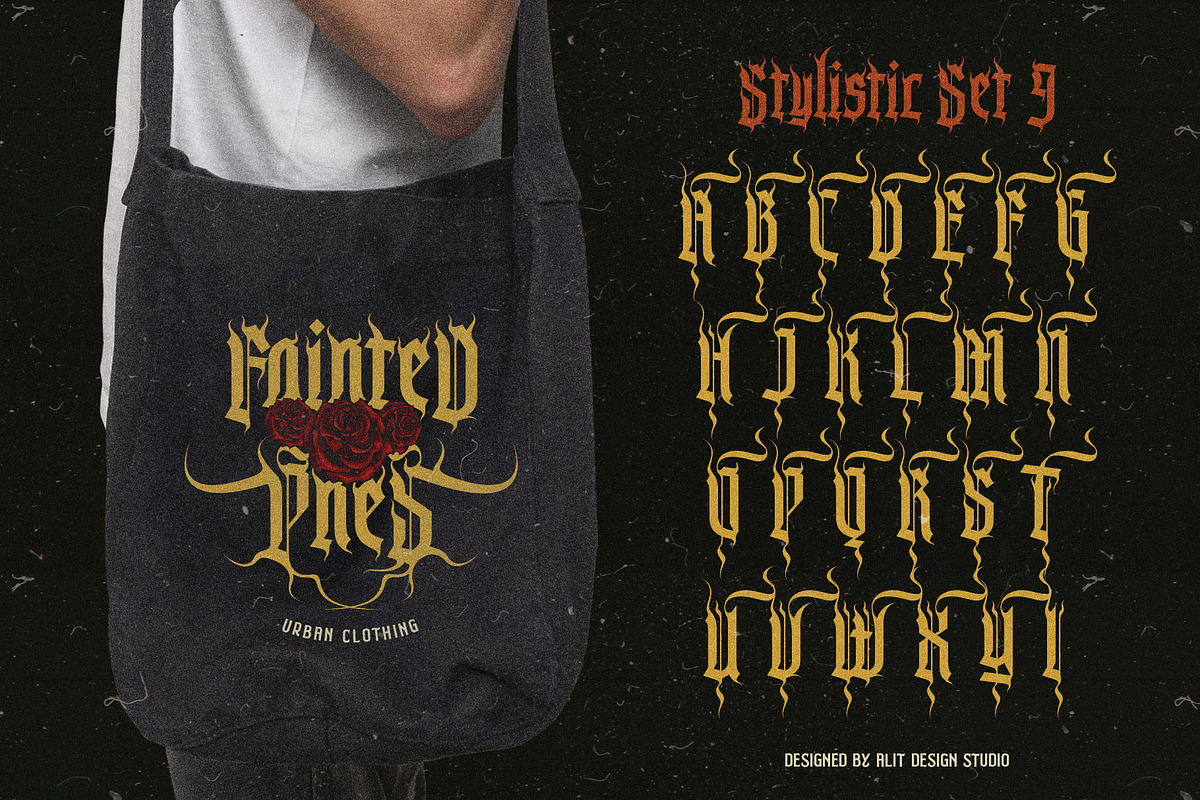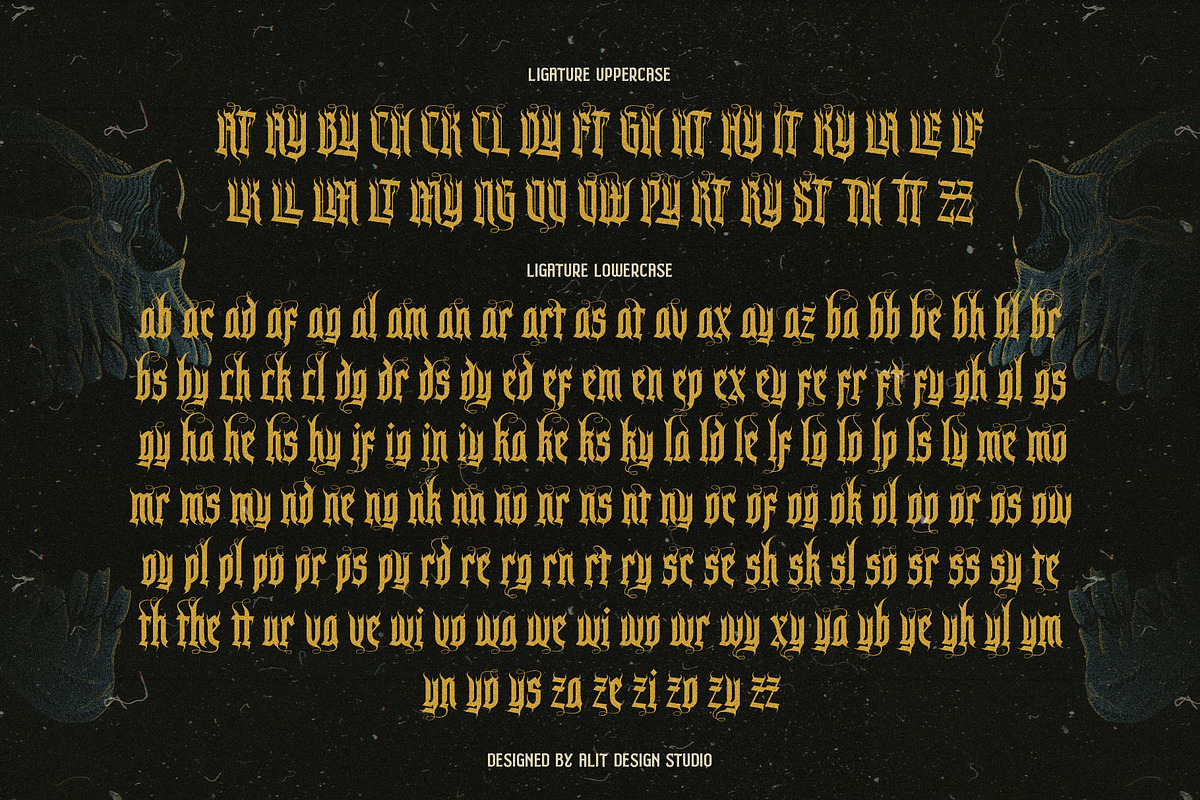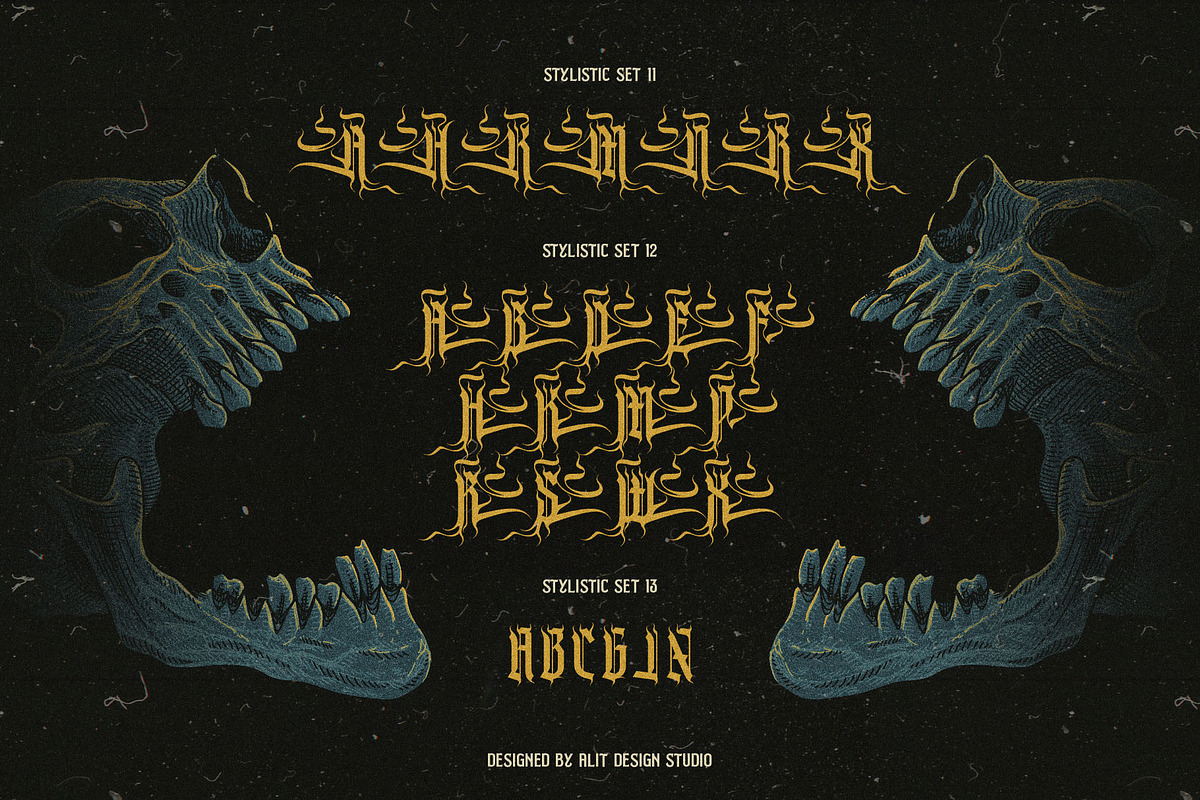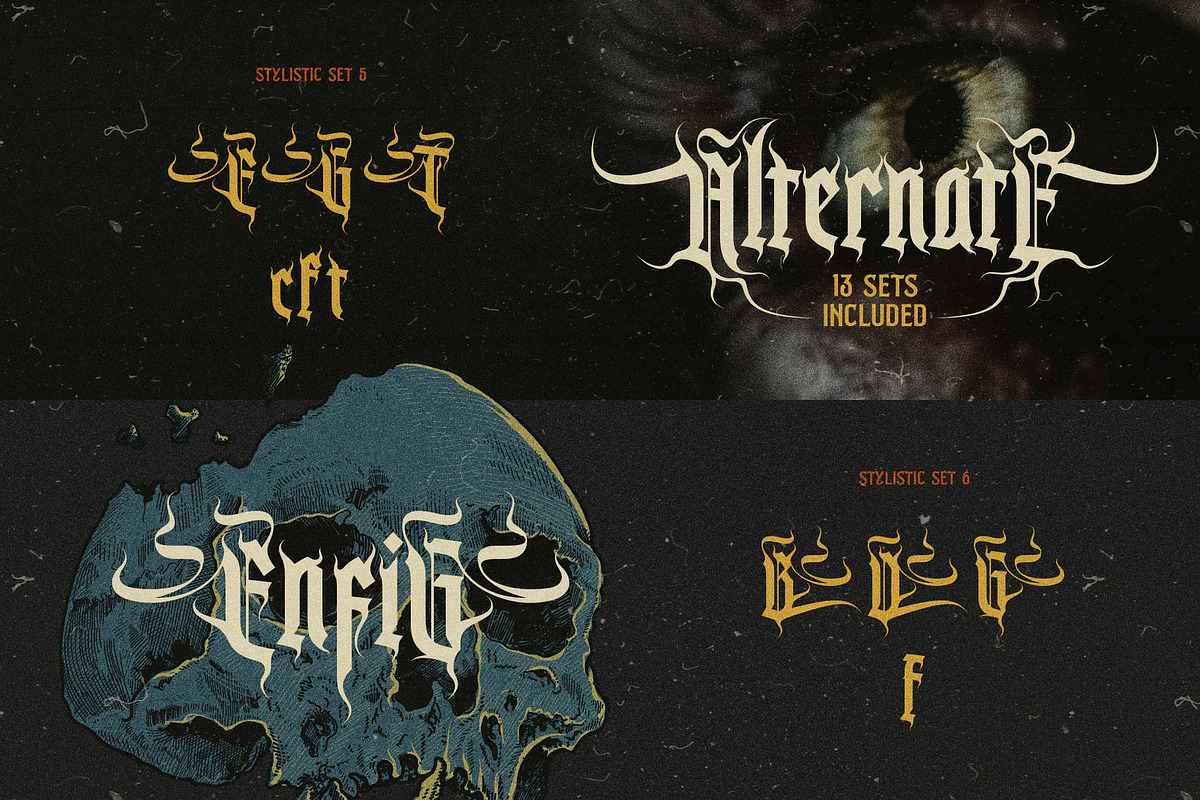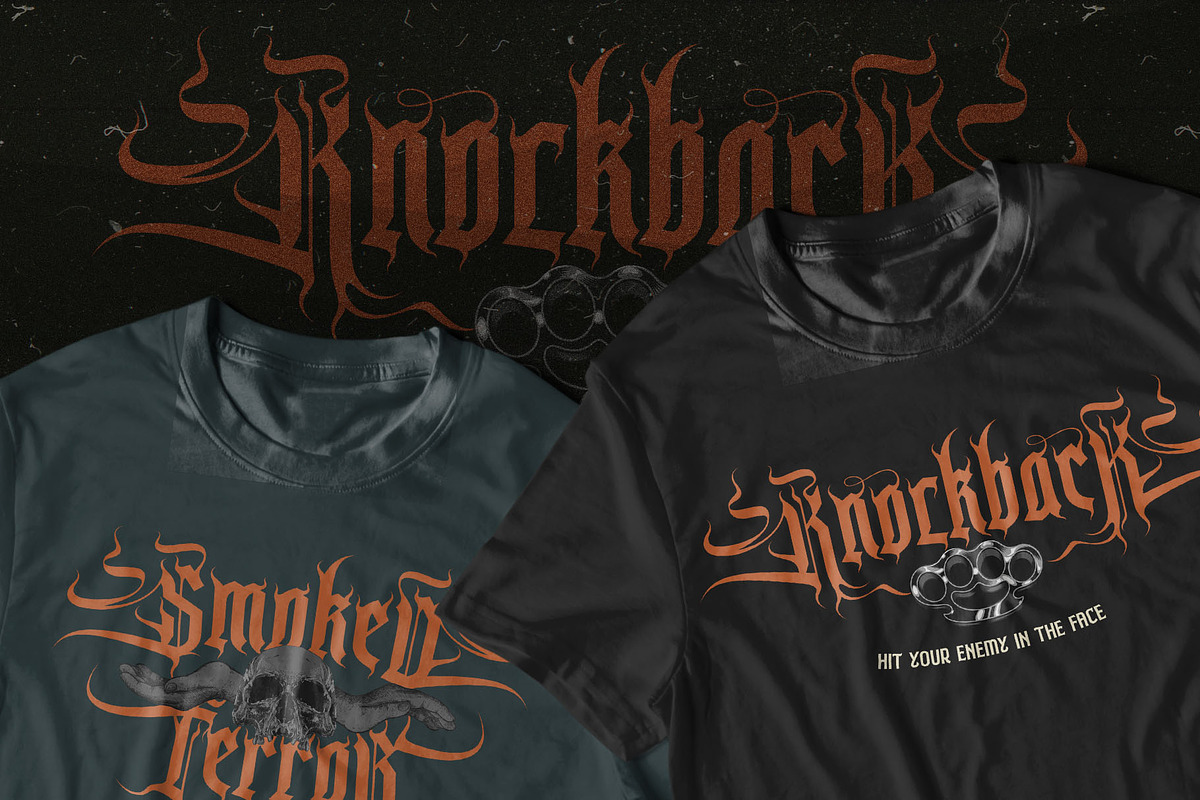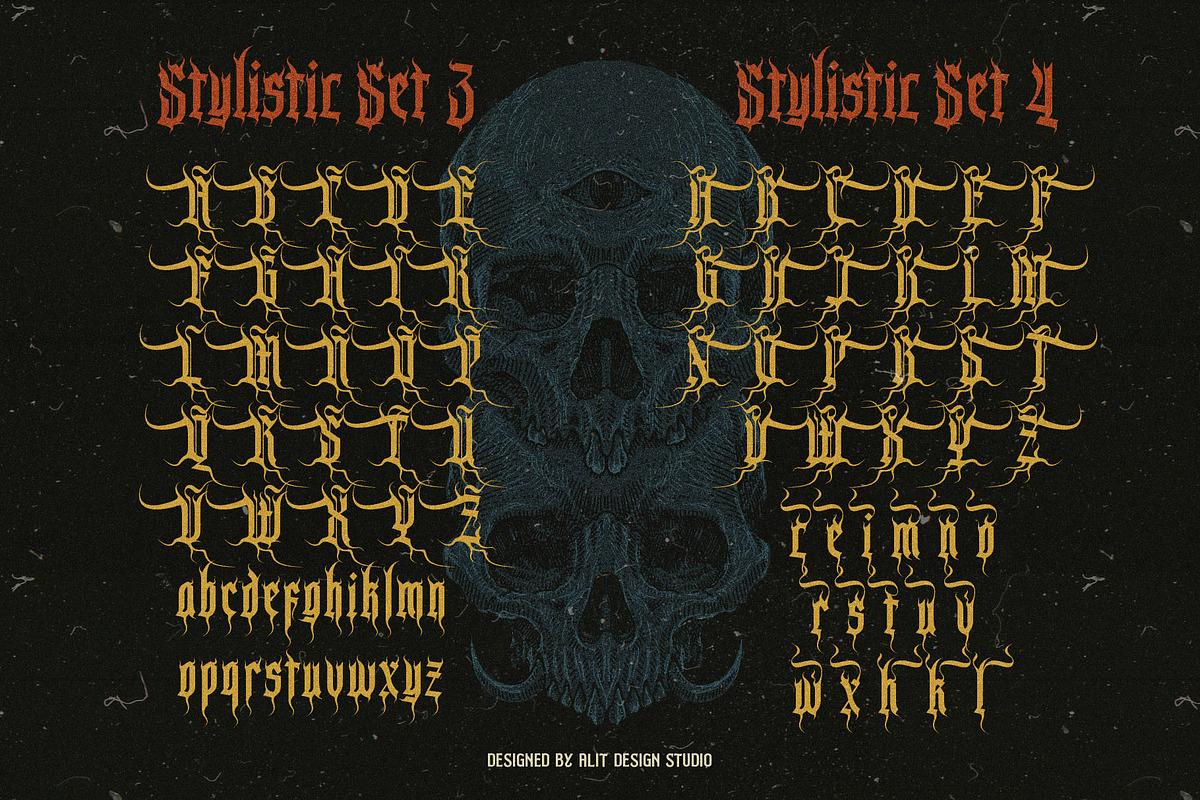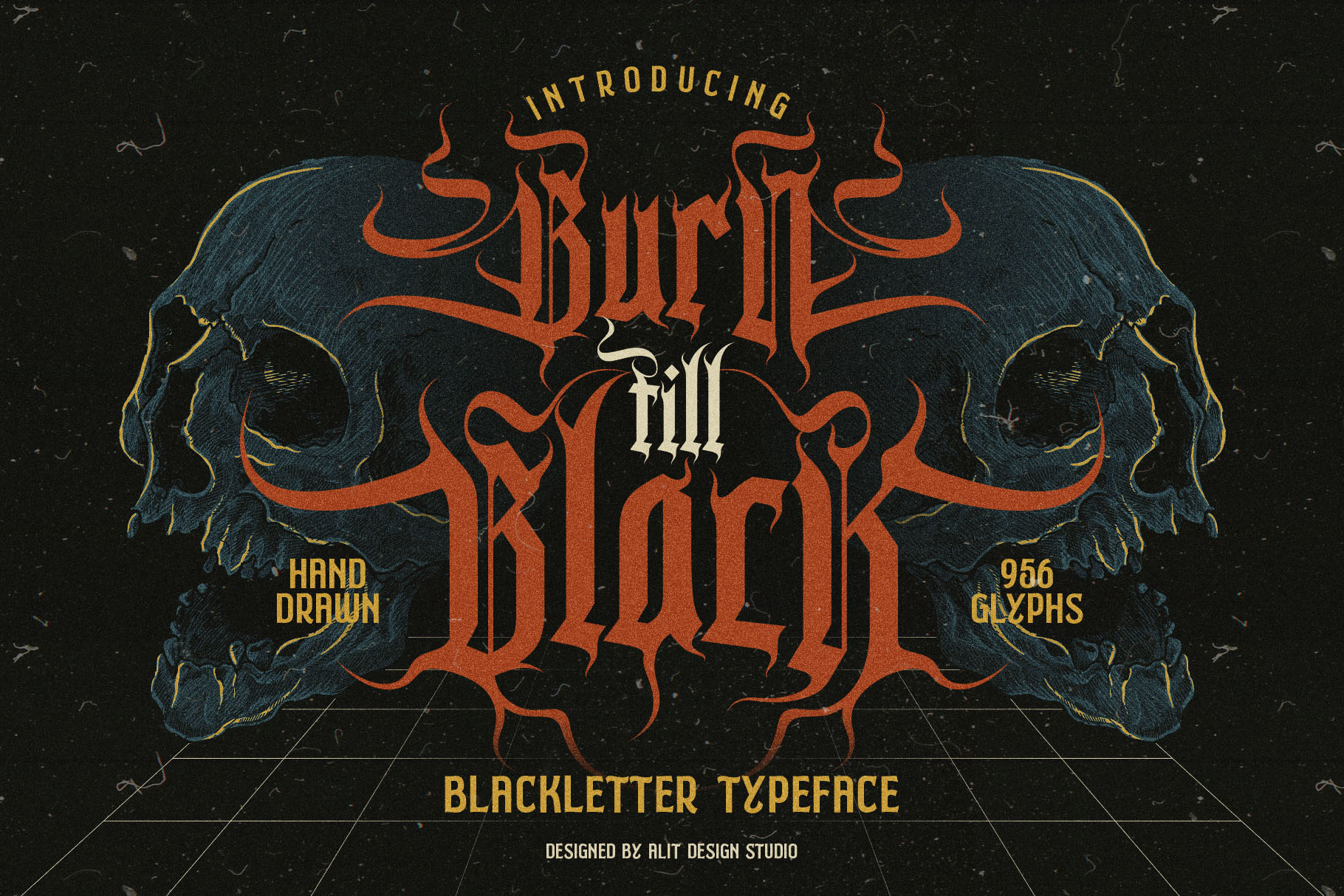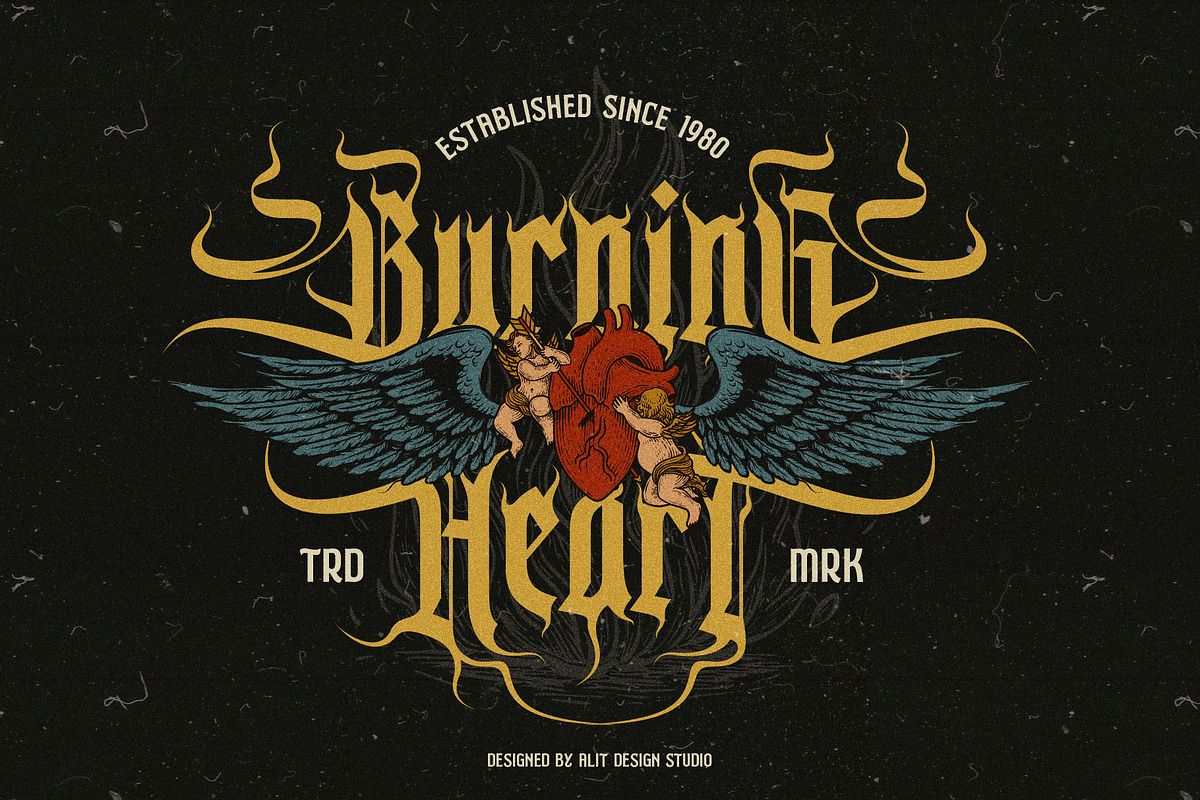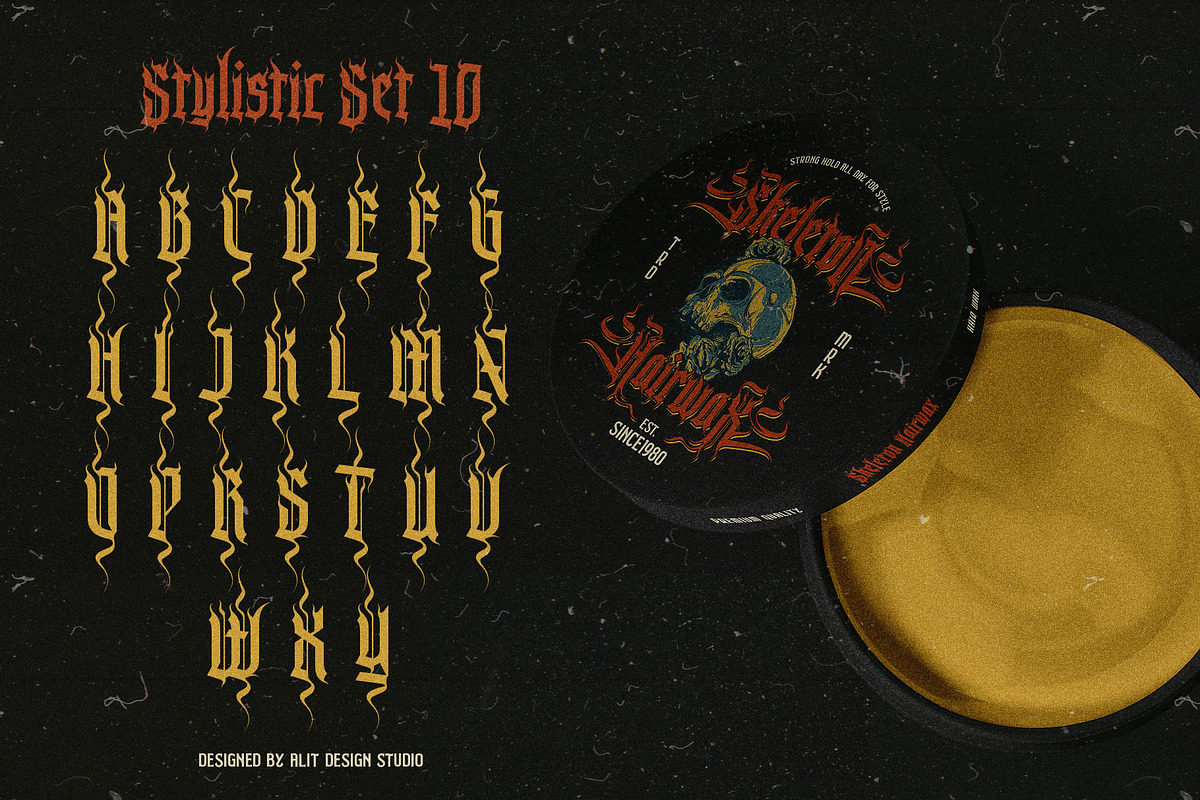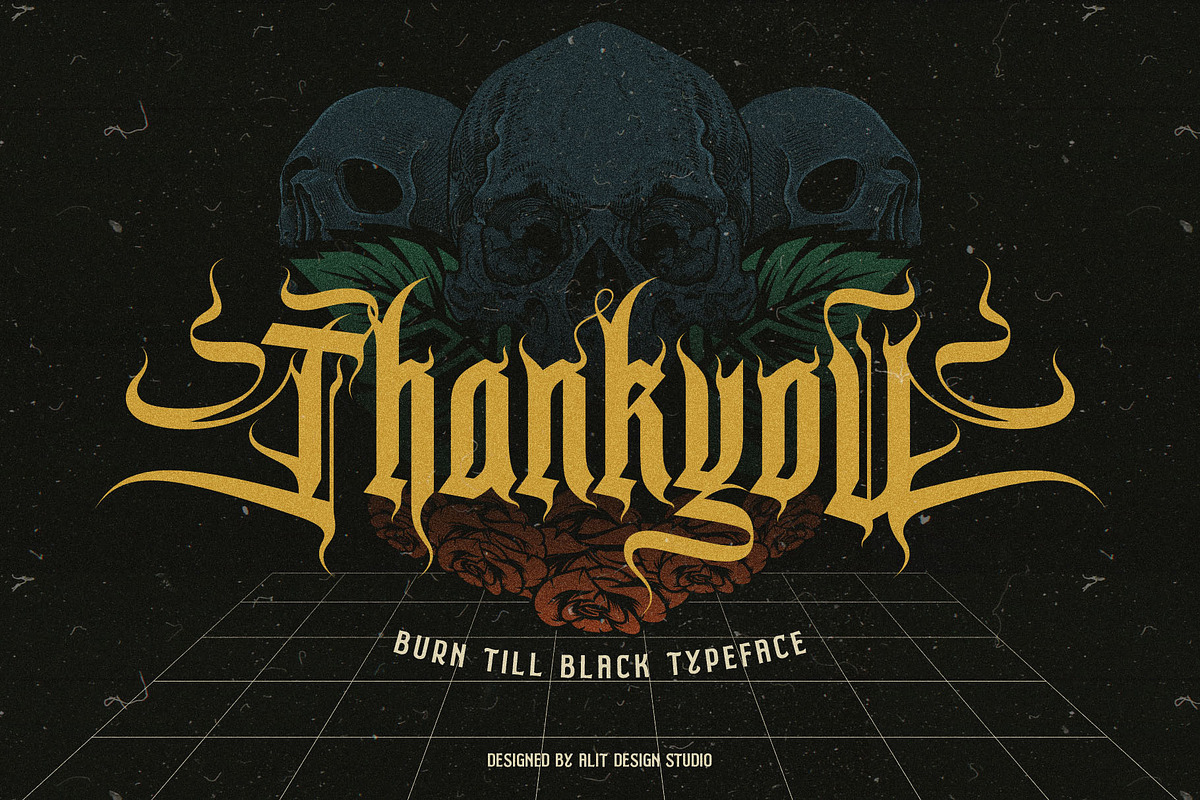
Burn Till Black Typeface
Introducing "Burnt Till Black" – a font that embodies the fiery spirit of metal music and the timeless allure of blackletter typography. Designed for those who dare to stand out, this font exudes raw energy and power, making it the perfect choice for album covers, band logos, posters, and more.
With its jagged edges and bold strokes, "Burnt Till Black" commands attention and leaves a lasting impression. Each letter is meticulously crafted to evoke a sense of intensity and rebellion, while the incorporation of fiery illustrations adds an extra layer of visual impact.
But "Burnt Till Black" isn't just about looks – it's also incredibly versatile. With 955 characters at your disposal, including support for PUA unicode, multilingual support, swashes, alternatives, and ligatures, you have the freedom to create truly unique designs that reflect your personal style.
Whether you're a metal band looking to brand your next album or a designer seeking to add a touch of edge to your projects, "Burnt Till Black" is sure to deliver. Embrace the darkness, unleash your creativity, and set your designs ablaze with the intense power of "Burnt Till Black."